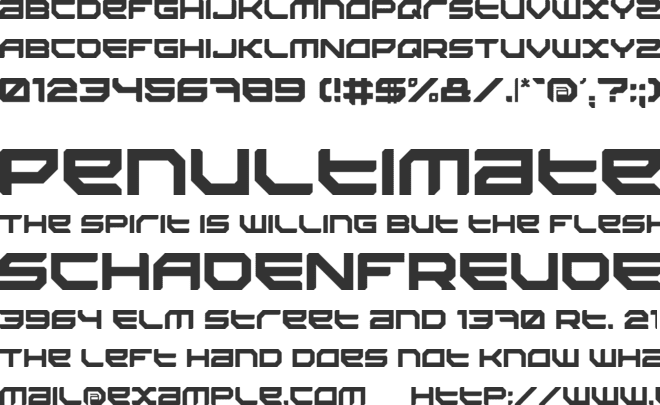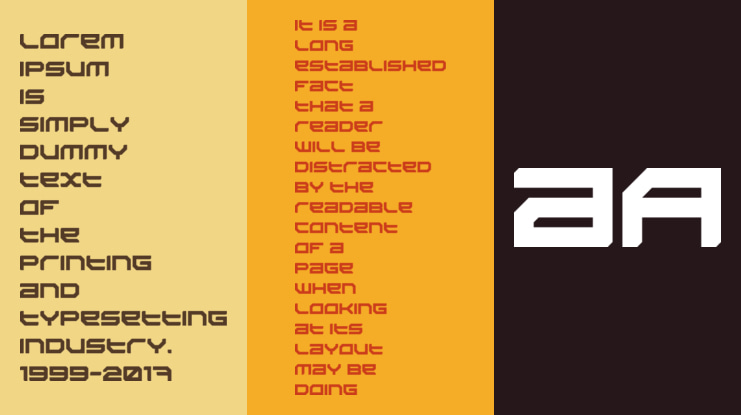
Sector 034 Font
This is a remix of my most popular font, Sector 017, but this time it's clean and simple, only leaving random cuts and angles here and there. Still, it's a super-duper-techno-futuristic font.
Similar version is visible in many designs of TAMRECORDS (a Russian neurofunk record label) and the credit goes to Pixel Junglist, an Ukrainian artist who is responsible for their artworks (I guess he is...). He remixed the original Sector 017 as well, I think I've just made his job much easier :).
There are "Basic Latin" and "More Latin" character sets available +Polish and Cyrillic characters.